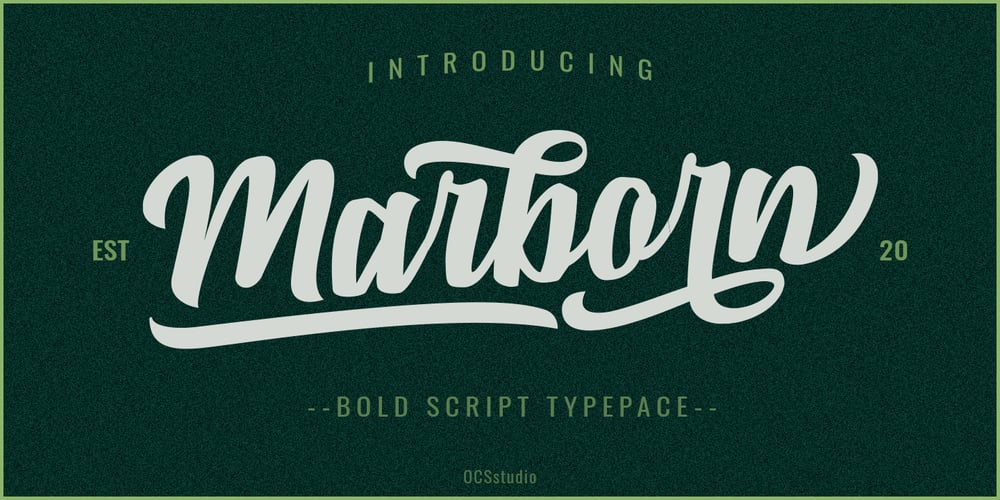
Marborn
Marborn font
Marborn Font Family was designed by Oki Candra Setiawan and published by OCSstudio. Marborn contains 1 styles and family package options. Marborn Bold Script Typeface modern suitable for your design needs. This font is suitable for designs such as logo designs, t-shirts, branding, social media posts, thumbnails, mugs, tupperware, tote bags, and various other design purposes.